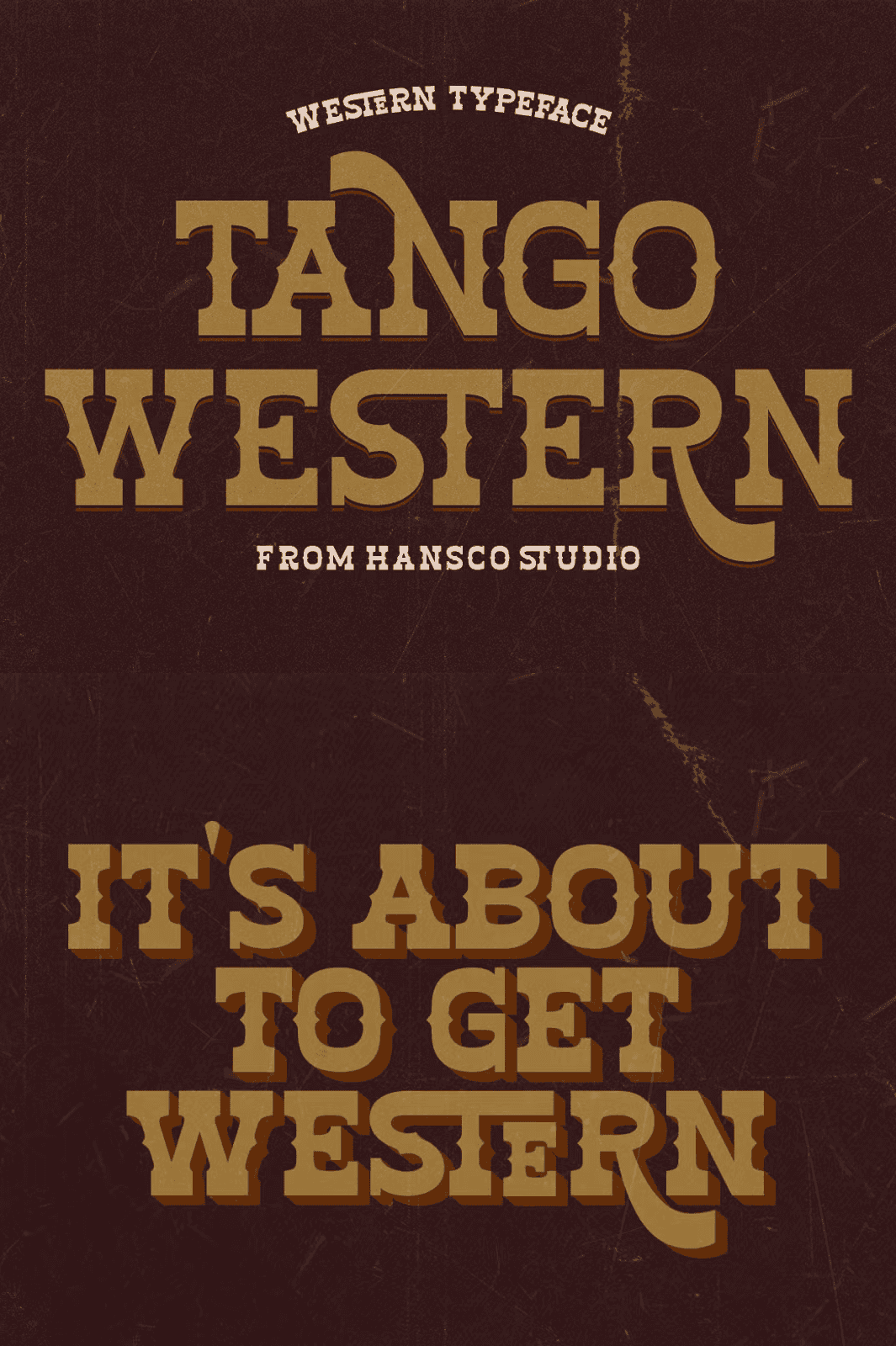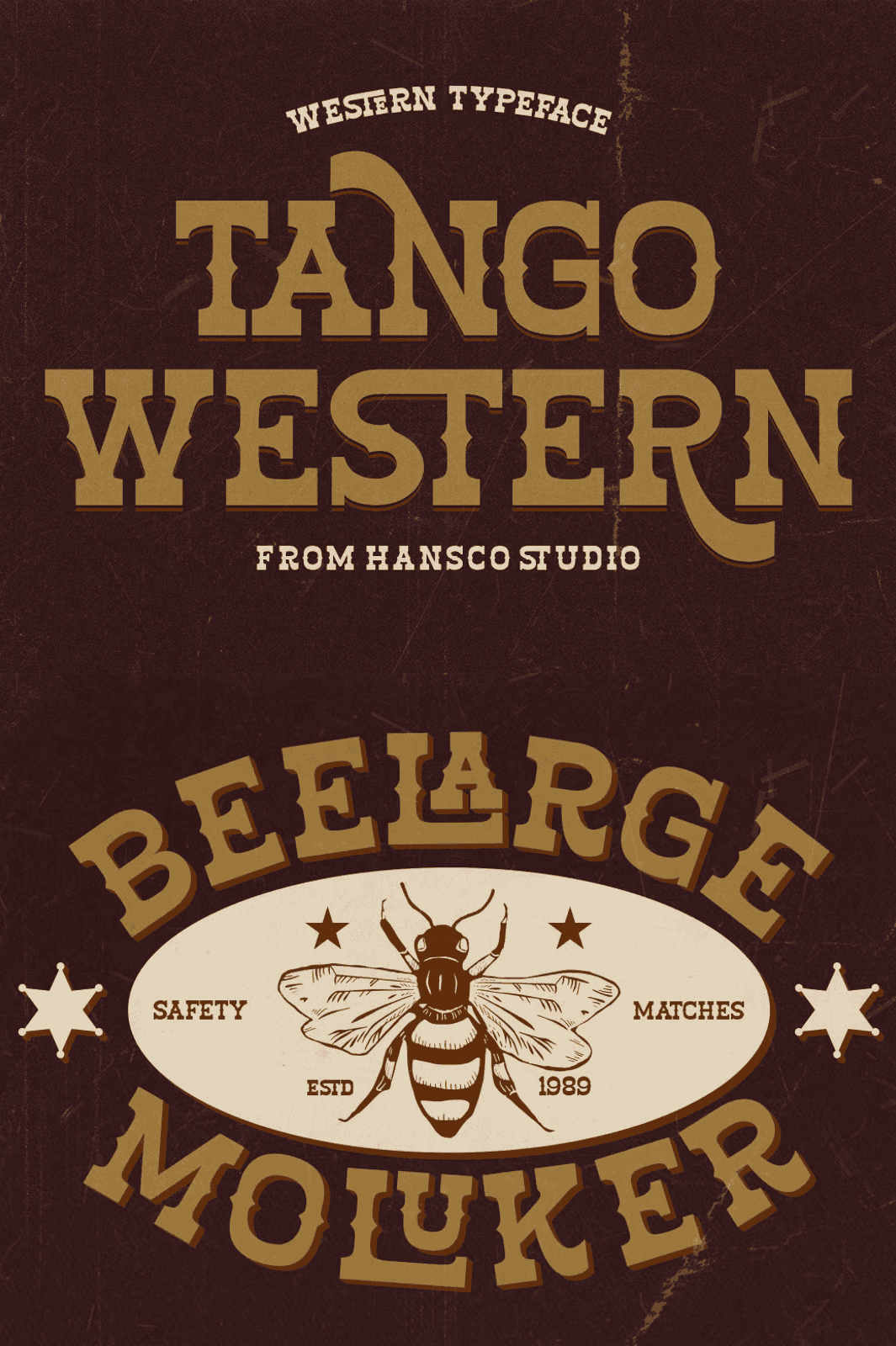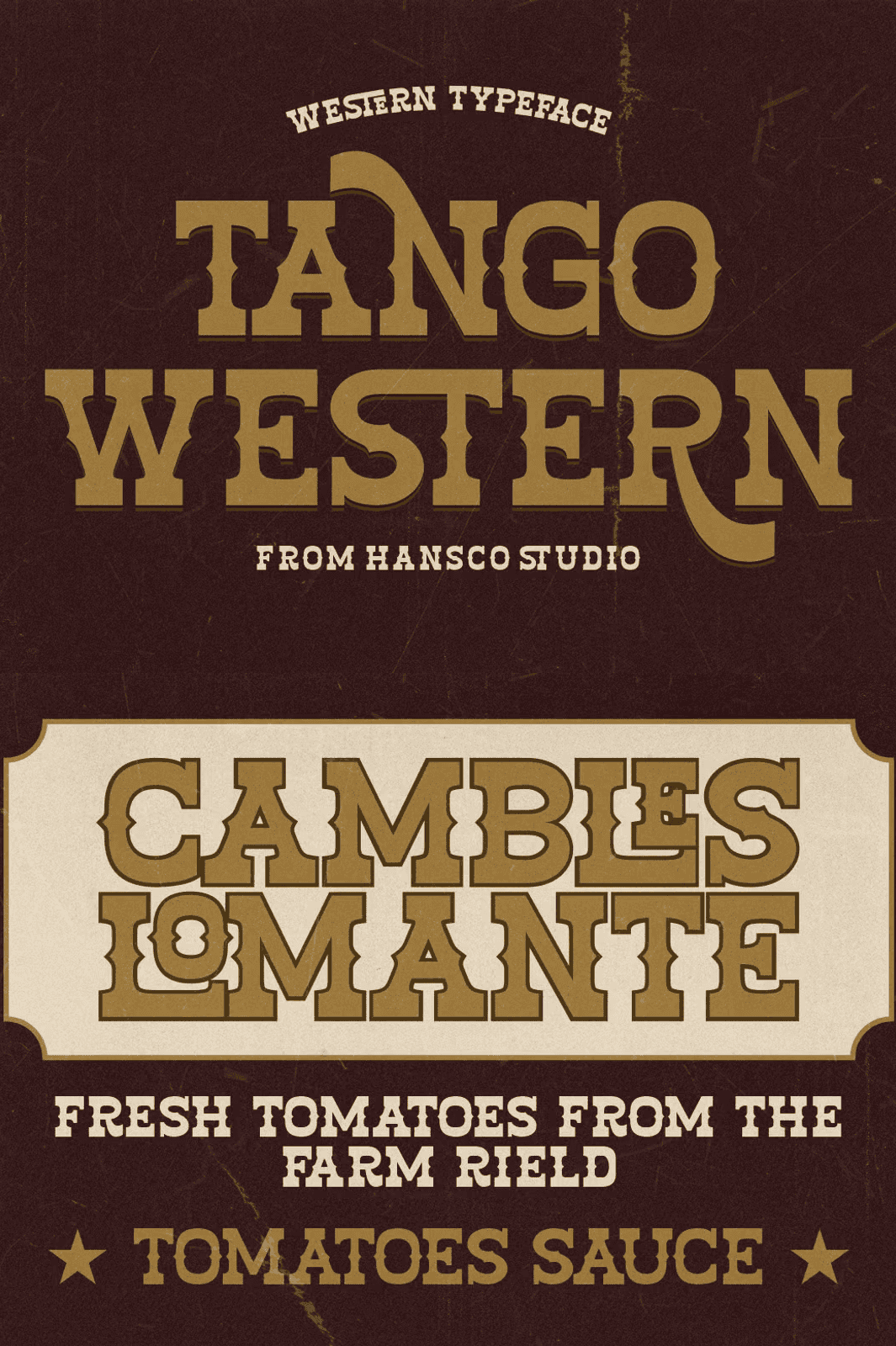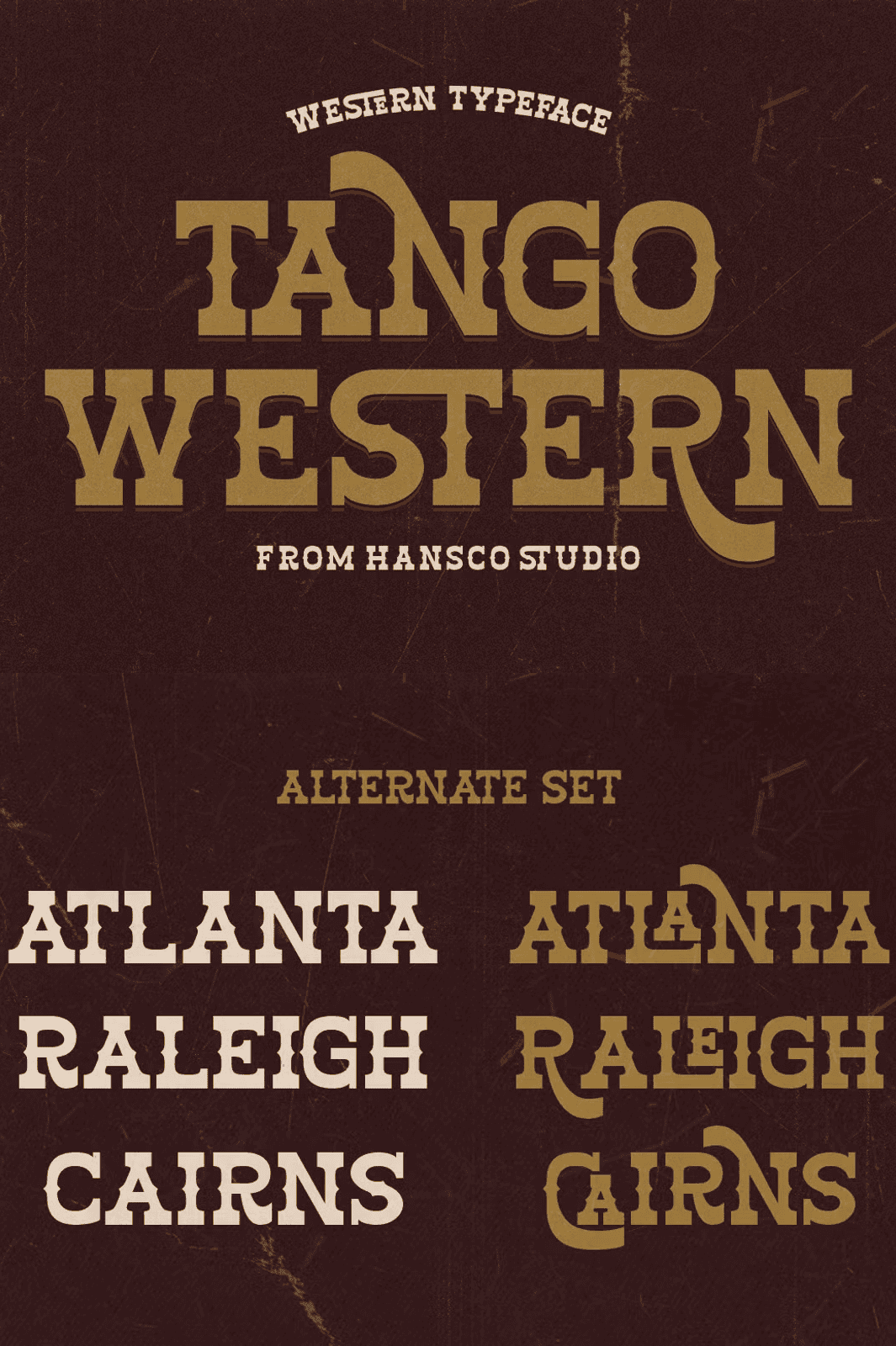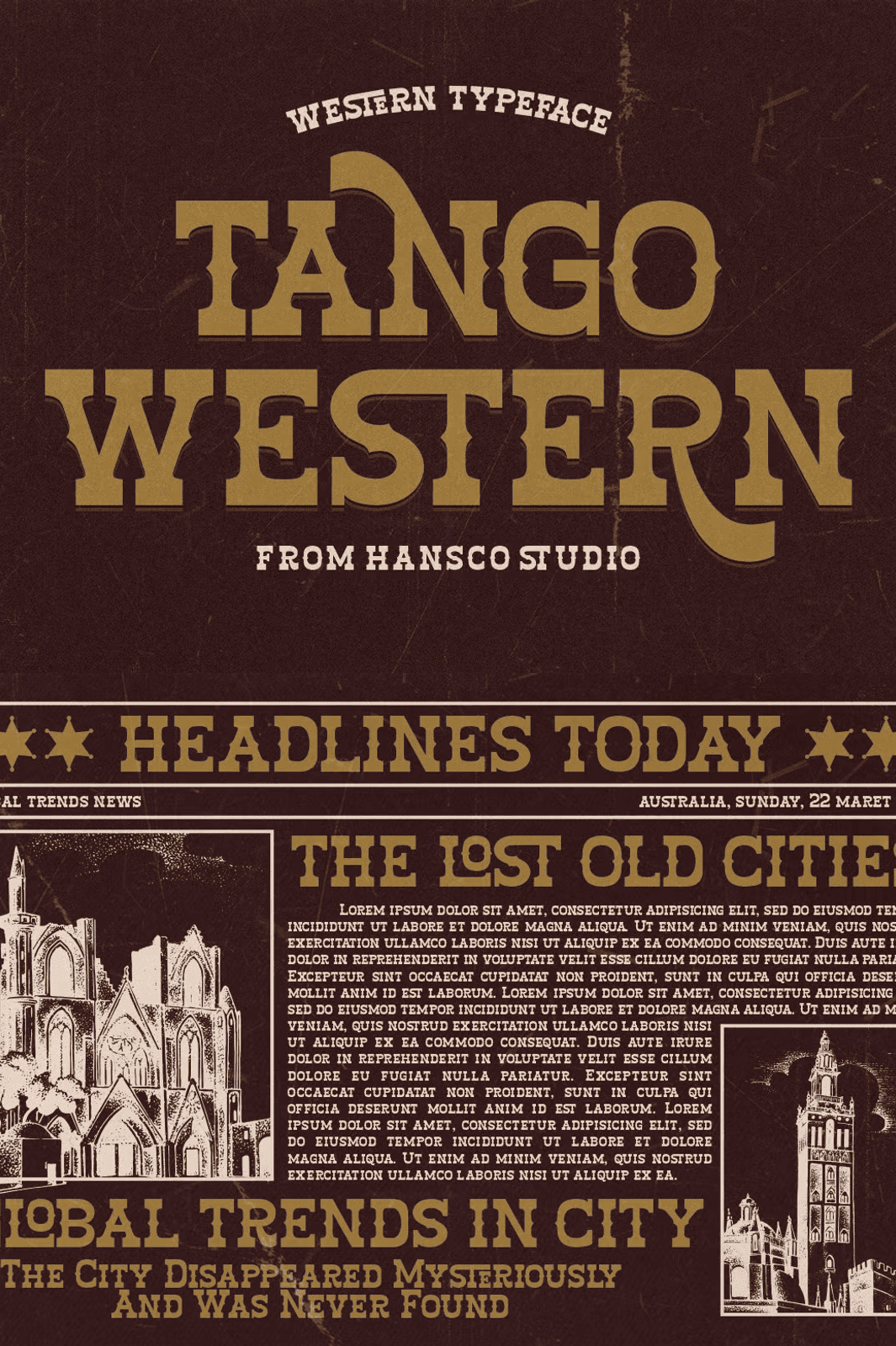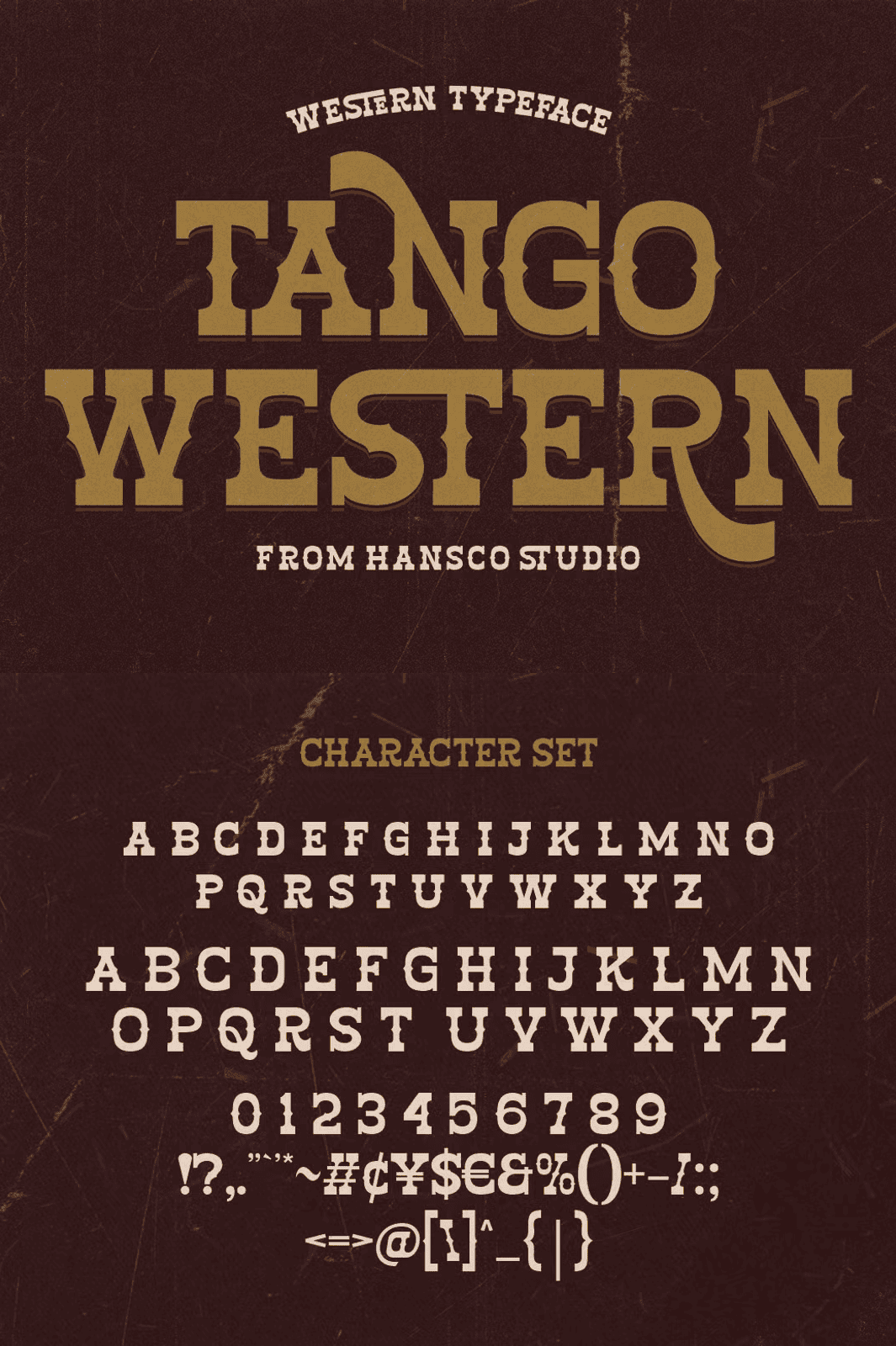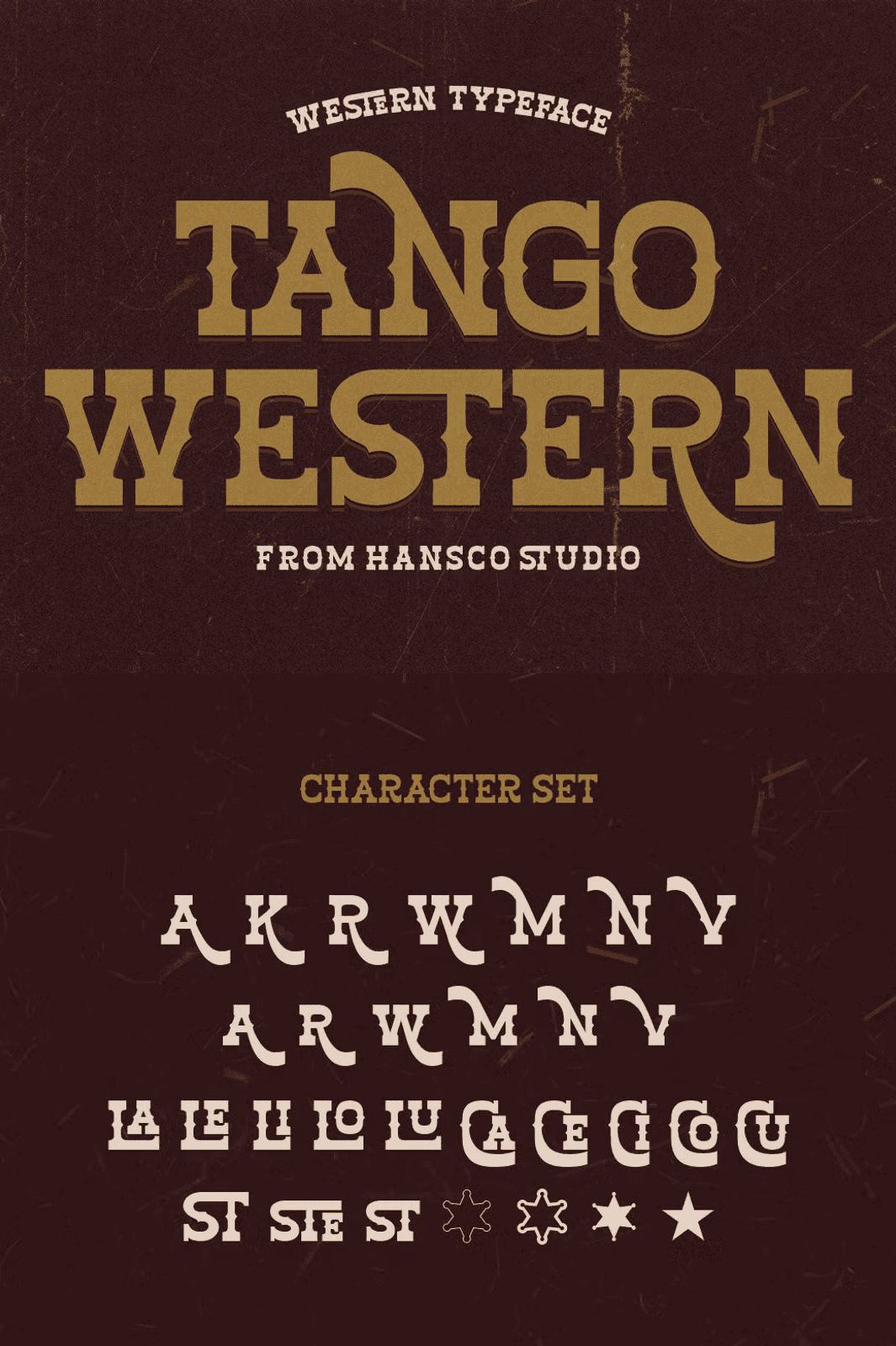
Tango Western Font – Retro Slab
Unlock the raw energy of the American West with Tango Western—a striking display slab serif font engineered to deliver maximum impact across every design project. Designed for creators who crave boldness, character, and timeless style, Tango Western turns ordinary visuals into unforgettable statements. Whether you’re crafting a rugged logo, a high-energy poster, or a stylish T-shirt design, this font brings the heat with sharp, assertive contours and an unmistakable retro vintage vibe.
Powerful Design Features for Creative Domination
Tango Western is not just a typeface—it’s a design weapon. Built with professional-grade versatility in mind, it includes a full suite of typographic tools:
• Uppercase and lowercase letters for flexible formatting and expressive typography
• Complete number set and punctuation for seamless integration into any layout
• Multilingual language support including English, French, German, Spanish, Italian, Portuguese, Dutch, and more
• Alternate glyphs to create unique variations and personalized designs
• Ligatures for smooth, elegant connections between characters
Dive Into Design Possibilities with Dynamic Versatility
With Tango Western, the creative possibilities are endless. Use it to:
• Build bold brand identities that stand out in crowded markets
• Design eye-catching packaging with retro flair for music, fashion, and lifestyle brands
• Produce high-impact posters, flyers, and magazine layouts for concerts, events, and editorial projects
• Create custom apparel and merch for bands, festivals, and streetwear labels
• Enhance digital content including YouTube thumbnails, Instagram graphics, and website headers
• Power Cricut project designs with clean, sharp characters that cut perfectly
Its strong, geometric structure and sharp edges give it a powerful presence—ideal for projects where you need to grab attention instantly and hold it.
Why Tango Western is the Ultimate Retro Design Tool
Unlike generic slab fonts, Tango Western offers more than just style—it offers substance. The clean yet assertive stroke contrast, combined with subtle character quirks, gives each letterform a personality all its own. It’s perfect for retro-inspired themes but also works seamlessly in modern contexts when you want to add a touch of nostalgic authenticity.
Whether you’re designing for a music label, a boutique clothing brand, or a digital ad campaign, Tango Western ensures your message cuts through the noise with confidence. It’s not just a font—it’s a statement of intent.